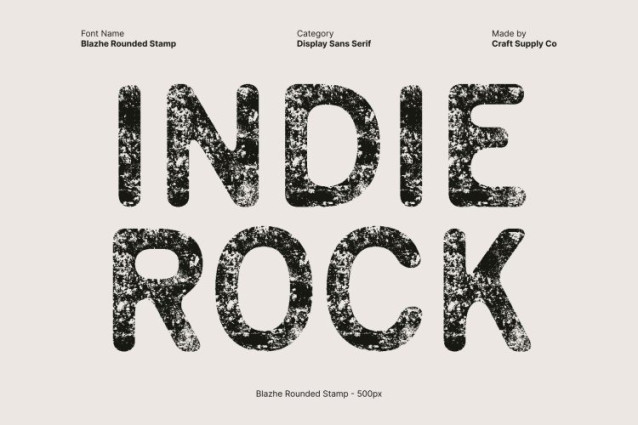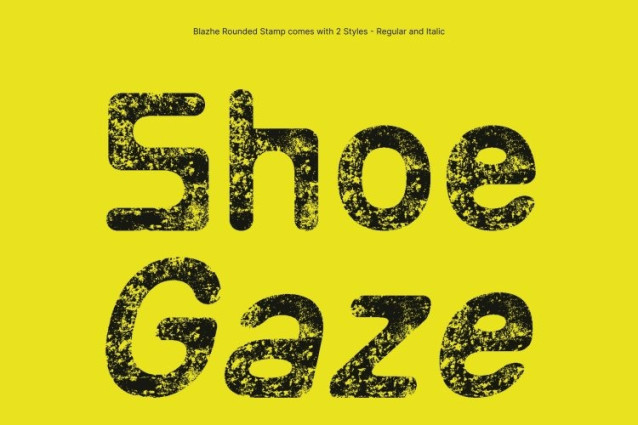
Blazhe Rounded Stamp Font
Blazhe Rounded Stamp Font This is a modern display sans serif font that merges bold design with softened, rounded geometry. Its striking letterforms immediately command attention, creating a strong and contemporary impression in any layout. The rounded edges introduce a friendly and approachable quality, balancing power with smoothness.
Stamp Texture for Expressive Personality
The distinctive stamp texture adds depth, grit, and artistic character to every letter. Instead of a perfectly polished look, this font embraces handmade charm that feels tactile and authentic. This textured finish transforms clean shapes into expressive forms, allowing your designs to convey emotion, originality, and creative flair
Ideal for Eye-Catching Display Purposes
Designed for standout use, this font thrives in posters, headlines, branding, and experimental compositions. Its bold weight and rounded shapes ensure instant visibility, while the textured effect adds intrigue and uniqueness.
A Blend of Modern Style and Vintage Character
This font captures the best of both worlds: modern structure and vintage atmosphere. The contemporary sans serif foundation keeps it clean and impactful, while the stamp texture introduces nostalgic charm. This blend results in a characterful, versatile display font that supports branding, editorial concepts, merchandise design, event graphics, and more